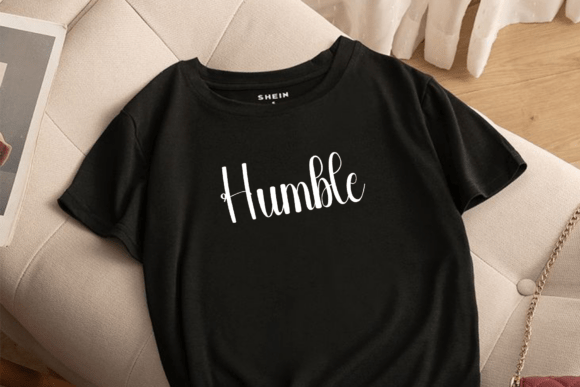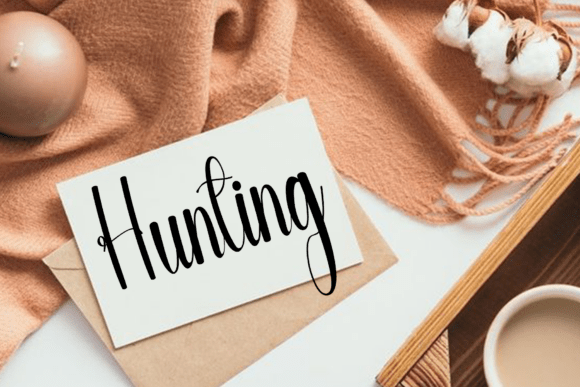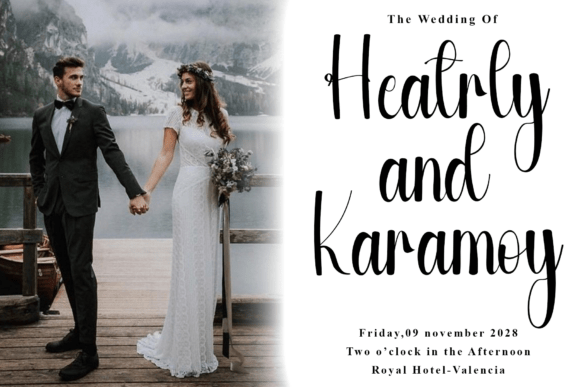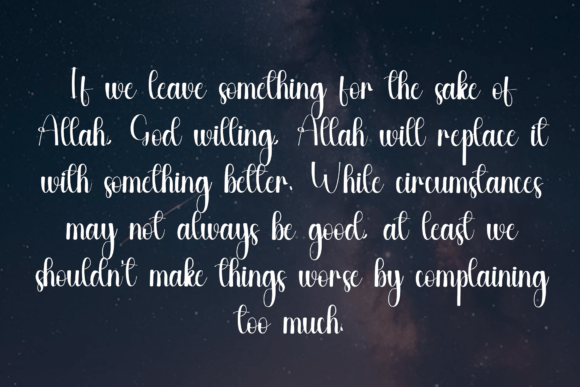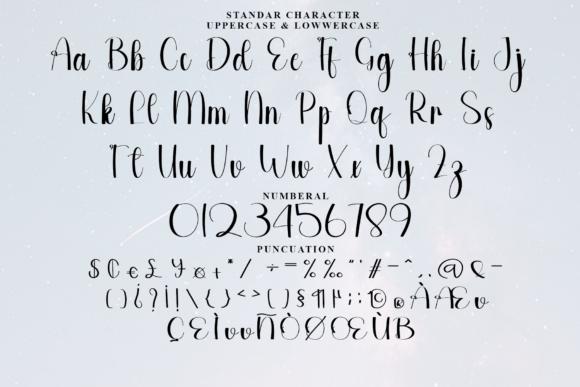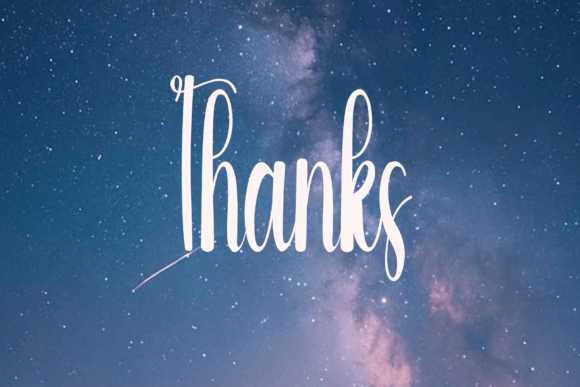
Introducing Automathic: The Ultimate Autumnal Script Font
As the seasons change and autumn leaves start to fall, designers and crafters are on the lookout for typography that captures the essence of this cozy and inviting time of year. Look no further than Automathic, a sophisticated and rhythmic script font that embodies a unique and professional autumnal visual voice. As part of a modern handwritten collection, Automathic is the perfect asset for seasonal autumn marketing, artisanal food packaging, boutique event invitations, and sophisticated editorial headers.
What Sets Automathic Apart
Automathic’s distinctive character is rooted in its high-contrast strokes, featuring thick, grounded downstrokes and delicate hairline connectors. This contrast creates a sense of elegance and refinement, perfect for designs that require a touch of sophistication. The typeface’s vertically elongated letterforms and graceful, looping ascenders mimic high-end inkwork, adding a level of luxury and refinement to any design.
Key Features of Automathic
- High-contrast strokes: Thick, grounded downstrokes and delicate hairline connectors create a sense of elegance and refinement.
- Vertically elongated letterforms: Adding a level of sophistication and luxury to any design.
- Graceful, looping ascenders: Mimicking high-end inkwork, these ascenders add a touch of refinement to any design.
- Autumnal visual voice: Perfect for seasonal autumn marketing, artisanal food packaging, boutique event invitations, and sophisticated editorial headers.
Use Cases for Automathic
Automathic is a versatile font that can be used in a variety of design applications. Here are some ideas to get you started:
- Seasonal autumn marketing: Use Automathic to create eye-catching promotions and advertisements that capture the essence of autumn.
- Artisanal food packaging: Add a touch of sophistication to your food packaging with Automathic, perfect for boutique food brands and specialty products.
- Boutique event invitations: Create elegant and refined event invitations with Automathic, perfect for weddings, harvest festivals, and other autumnal events.
- Sophisticated editorial headers: Use Automathic to add a level of luxury and refinement to your editorial designs, such as magazine headers and article titles.
Why Choose Automathic?
With so many fonts to choose from, why choose Automathic? Here are just a few reasons:
- Unique and professional: Automathic’s autumnal visual voice is unlike any other font on the market, making it a standout choice for designers and crafters.
- High-quality design: With its high-contrast strokes and elegant letterforms, Automathic is a beautifully designed font that will elevate any design.
- Versatile: Automathic can be used in a variety of design applications, from marketing and packaging to editorial and events.
Automathic is a sophisticated and rhythmic script font that embodies the essence of autumn. With its high-contrast strokes, elegant letterforms, and autumnal visual voice, it’s the perfect asset for designers and crafters looking to add a touch of sophistication and refinement to their designs. Whether you’re working on seasonal autumn marketing, artisanal food packaging, boutique event invitations, or sophisticated editorial headers, Automathic is the ultimate choice.